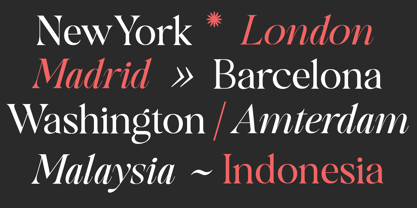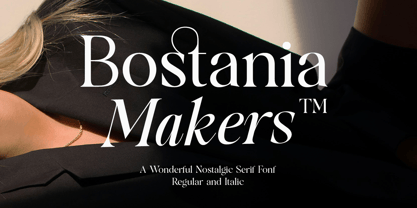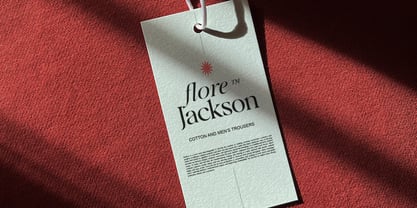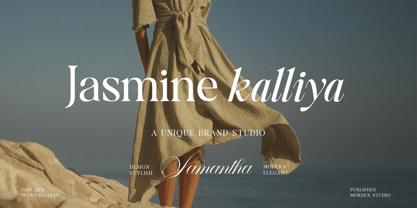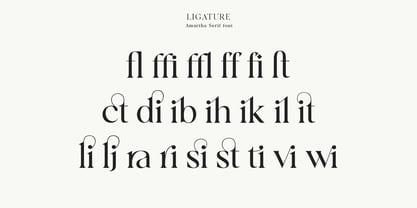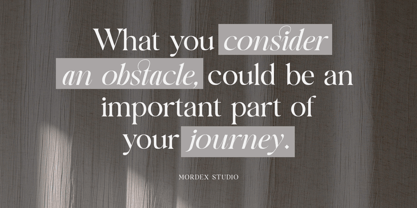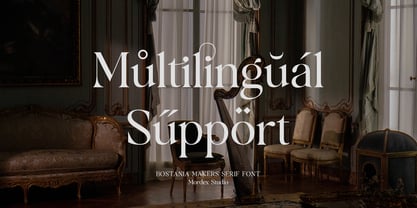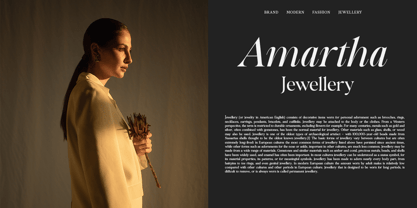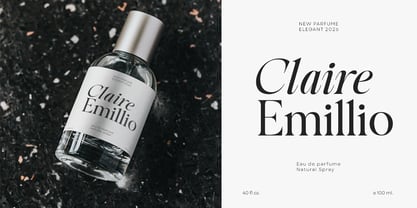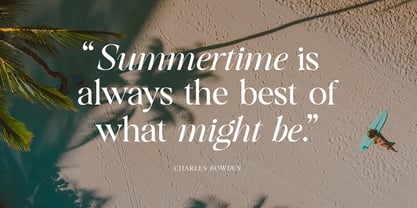
Bostania Makers
by Mordex Studio
The Bostania Makers Font Family was designed by Teuku Hamzah and published by Mordex Studio. Bostania Makers contains 2 styles and family package options. More about this family
Meet Bostania Makers, a stunning Regular and Italic serif font that wants to be the center of attention. Use this classic and elegant serif font for large-format titles, long texts, or compelling quotes. Bostania Makers is a weighty typeface designed to draw attention to the center of attention. With stunning contrast, organic curves, and sharp italics, the Bostania Makers Serif Font is a phenomenal choice for branding projects or any typeface focused on luxury. This font is also suitable for designs such as logos, fashion brands, magazines, and social media. Feel free to follow, like, and share. Thank you so much for visiting my shop!
Designers: Teuku Hamzah
Foundry: Mordex Studio
Bostania Makers